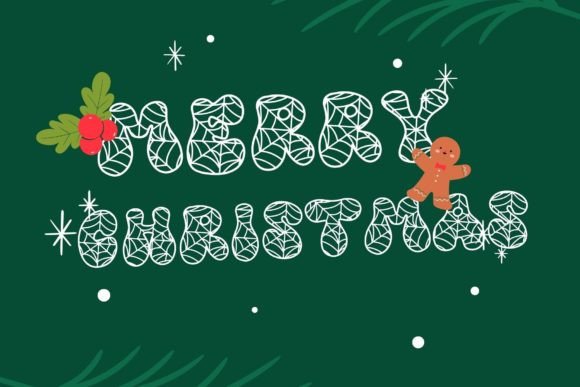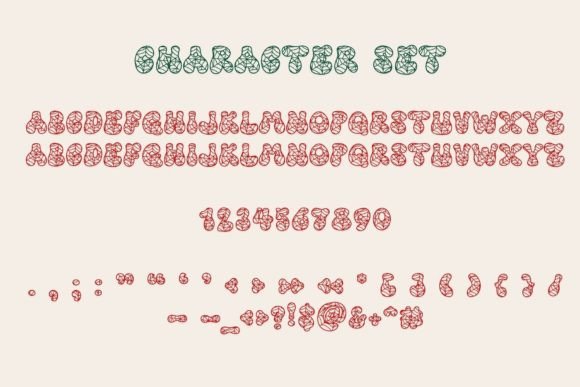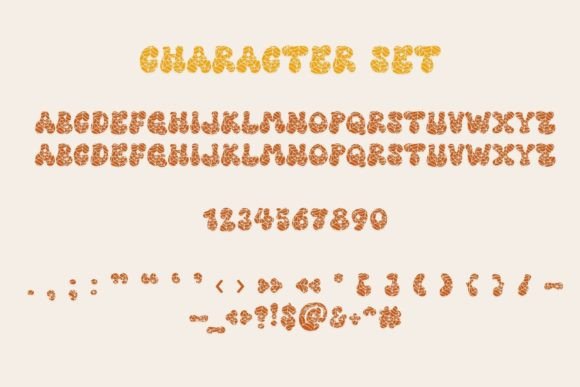
Introduction to Retro Spider Web Font
As you’re browsing through your design files, do you ever stumble upon a font that instantly sparks creativity and transports you to a world of spooky charm? For designers and crafty enthusiasts, discovering the perfect font can be a game-changer. That’s exactly what happens when you come across the Retro Spider Web Font – a playful, high-quality design resource that’s sure to add an extra layer of authenticity to your creative projects.
Whether you’re working on a Halloween-themed blog post, a logo design, or a set of invitations, the Retro Spider Web Font is an excellent choice. With its transparent background and elegant, hand-drawn style, it’s perfect for adding a touch of whimsy and personality to your designs. And the best part? It’s available for free download, making it an invaluable resource for designers and crafty enthusiasts alike.
As a design resource, the Retro Spider Web Font is a valuable addition to any designer’s toolkit, offering endless possibilities for creative projects and a level of customization that’s hard to find in other fonts.
Key Features of Retro Spider Web Font
- Unique, hand-drawn design with a nostalgic and vintage feel, perfect for creative projects.
- Perfect for use in web design, print materials, or any other creative project requiring a distinctive, retro aesthetic.
Honest Review: Retro Spider Web Font
I recently had the opportunity to work with the Retro Spider Web Font, and I must say, it’s a great addition to any design resource. This font is perfect for creative projects that require a unique and eye-catching element.
Here are some things that work well about this font:
- High-quality design that’s perfect for digital and print projects ✨
- Not ideal for large blocks of text, as it can be overwhelming ⚠️
- May not be suitable for all design styles, as it has a distinct retro aesthetic ⚠️
Overall, I’m impressed with the Retro Spider Web Font. It’s a great tool for designers who want to add a touch of creativity and whimsy to their projects. While it may not be perfect for every situation, it’s definitely worth considering for the right design project.
How to Use Retro Spider Web Font
The Retro Spider Web Font is a unique and eye-catching design resource that can add a touch of elegance to any creative project. This high-quality font is perfect for designers looking for a distinctive and memorable look.
To maximize the effectiveness of the Retro Spider Web Font, use it in combination with other design elements that complement its unique style. Experiment with different font sizes, colors, and arrangements to create a visually appealing design.
The Retro Spider Web Font is ideal for creative projects such as:
- Event promotions and posters
- Photography and art projects